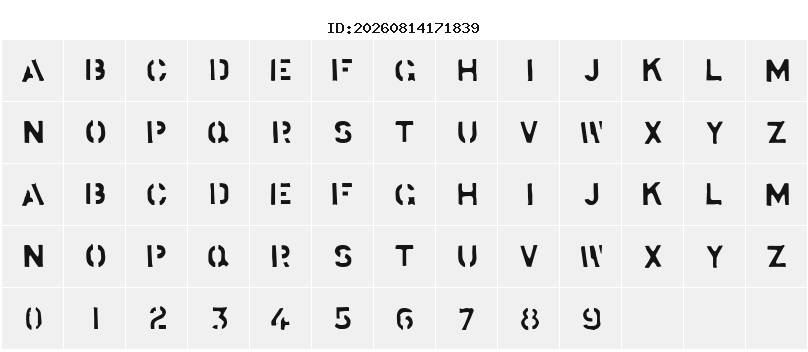
Stockstill Solid Preview
• Font Name: Stockstill Solid
• Full Font Name: Stockstill Solid
About Stockstill Solid.ttf
Stockstill Solid.ttf is a modern, elegant sans-serif font designed for ultimate readability and visual harmony. Perfect for branding, headlines, web design, and print materials.